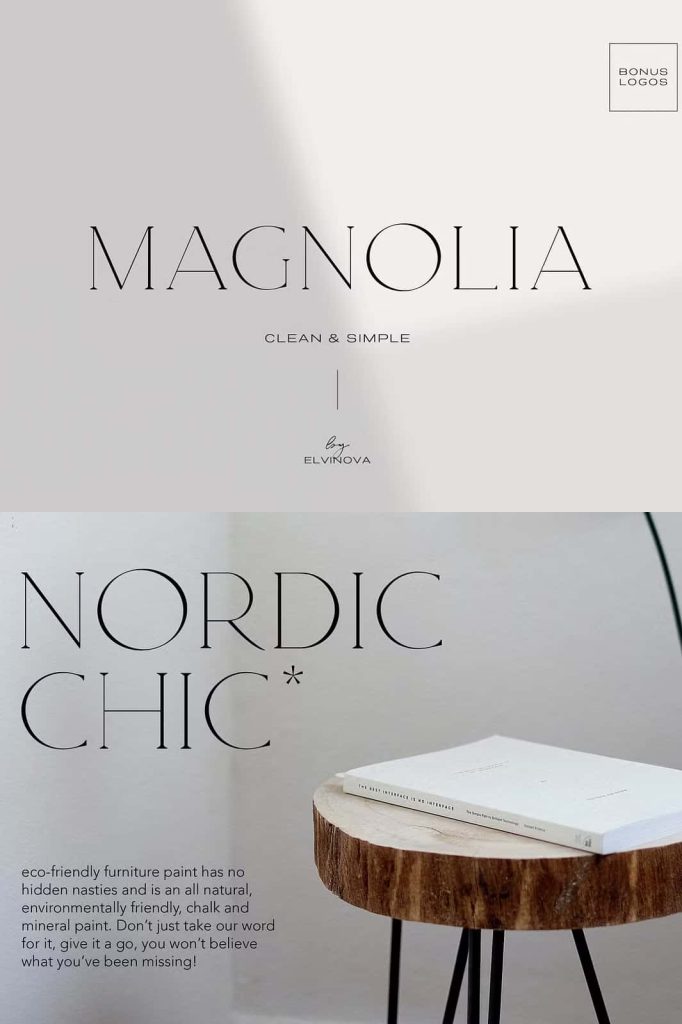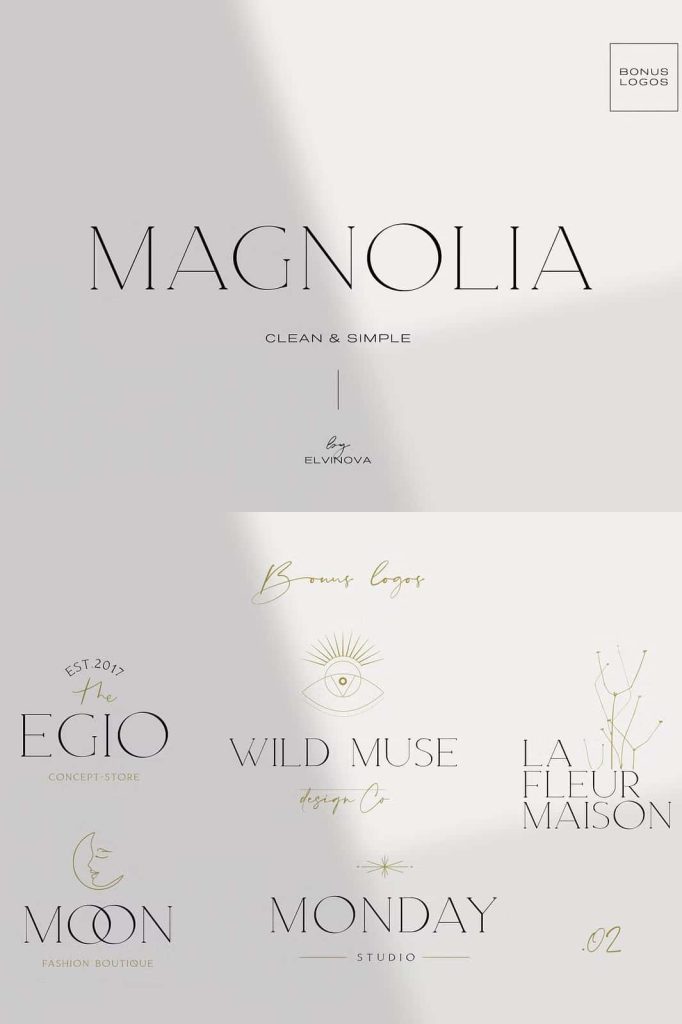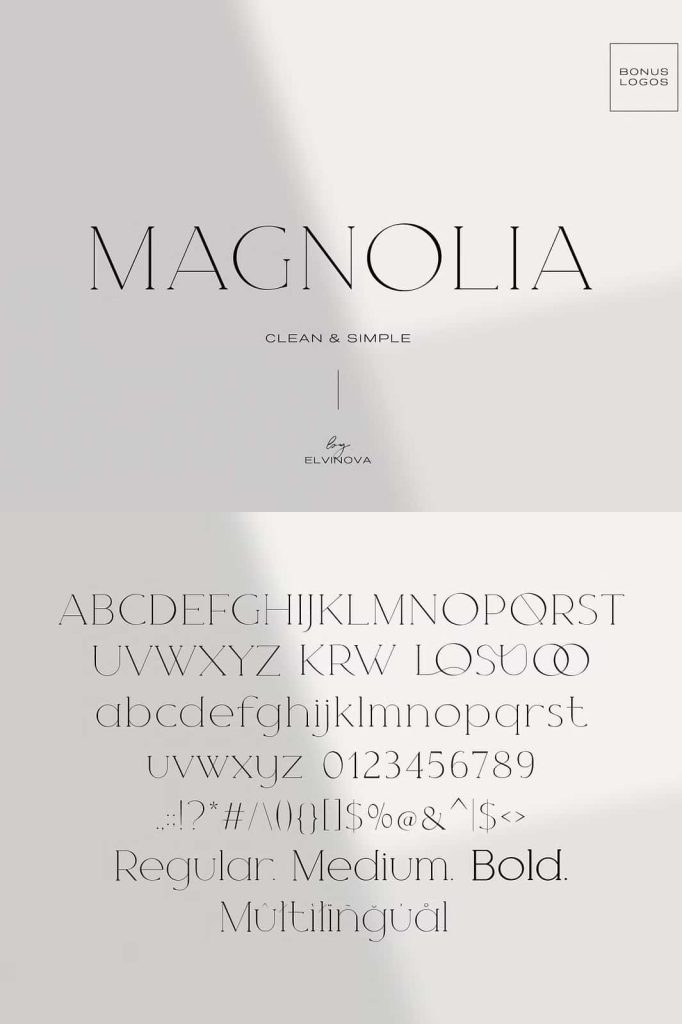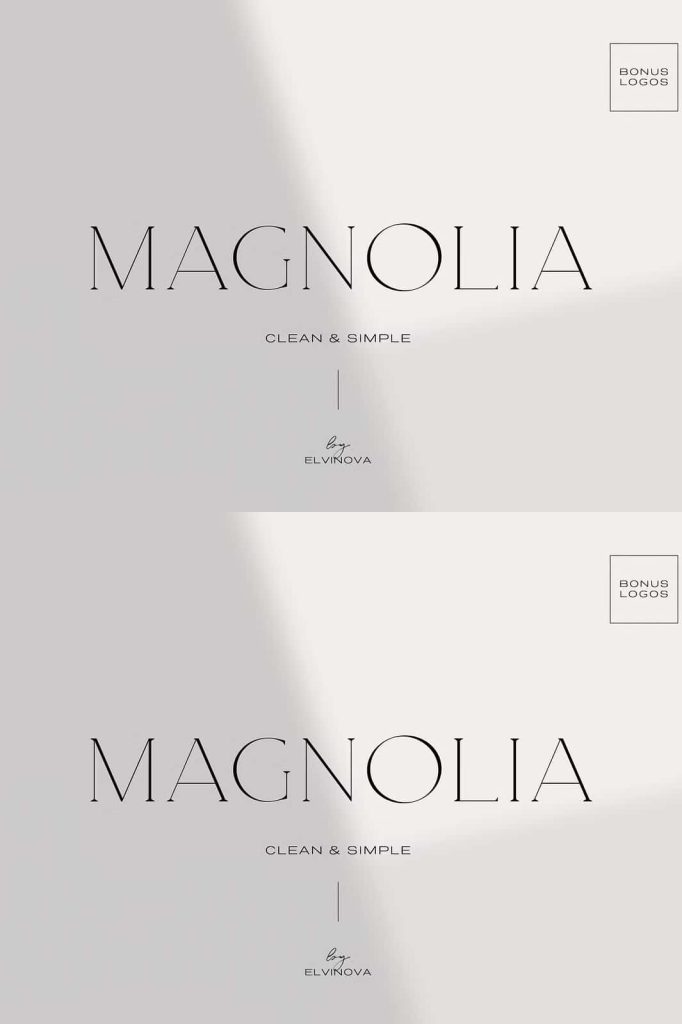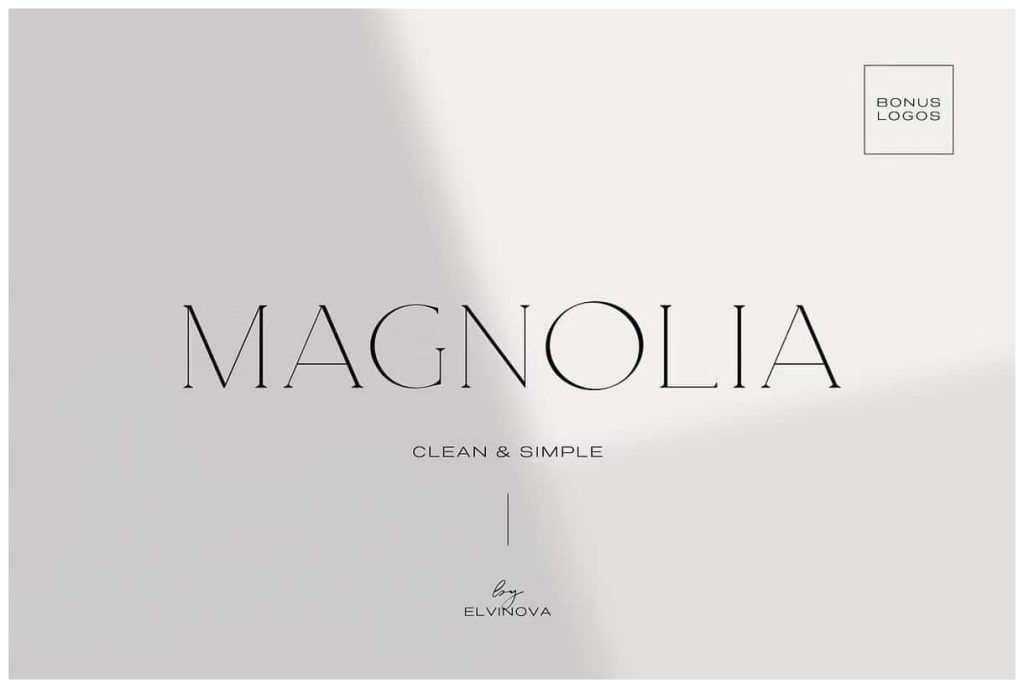
Magnolia. Modern Serif FontleastedApril 11, 2025Fonts Magnolia is a modern serif typeface. Clean, delicate, classic. Elegant font with feminine bonus logos. Download